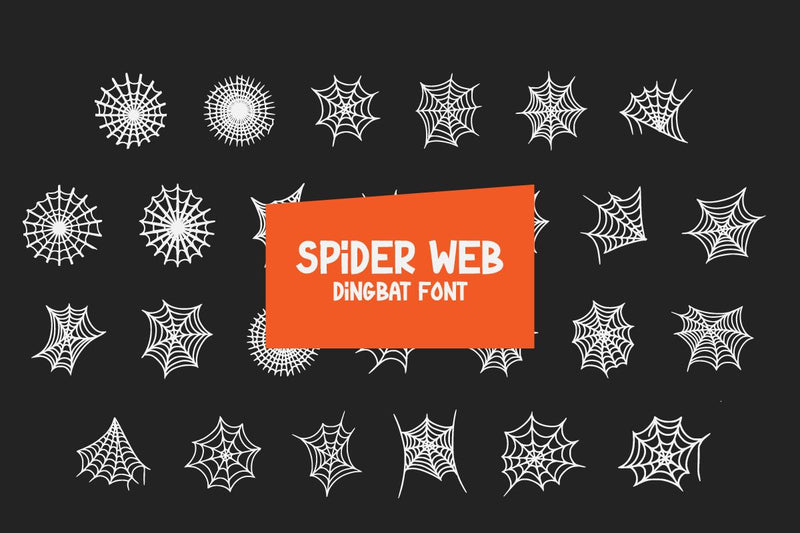
Spider Web - Dingbat Font
Spider Web is a unique and creative dingbat font. This font is inspired by the Halloween theme. This font contains glyphs of various cobwebs